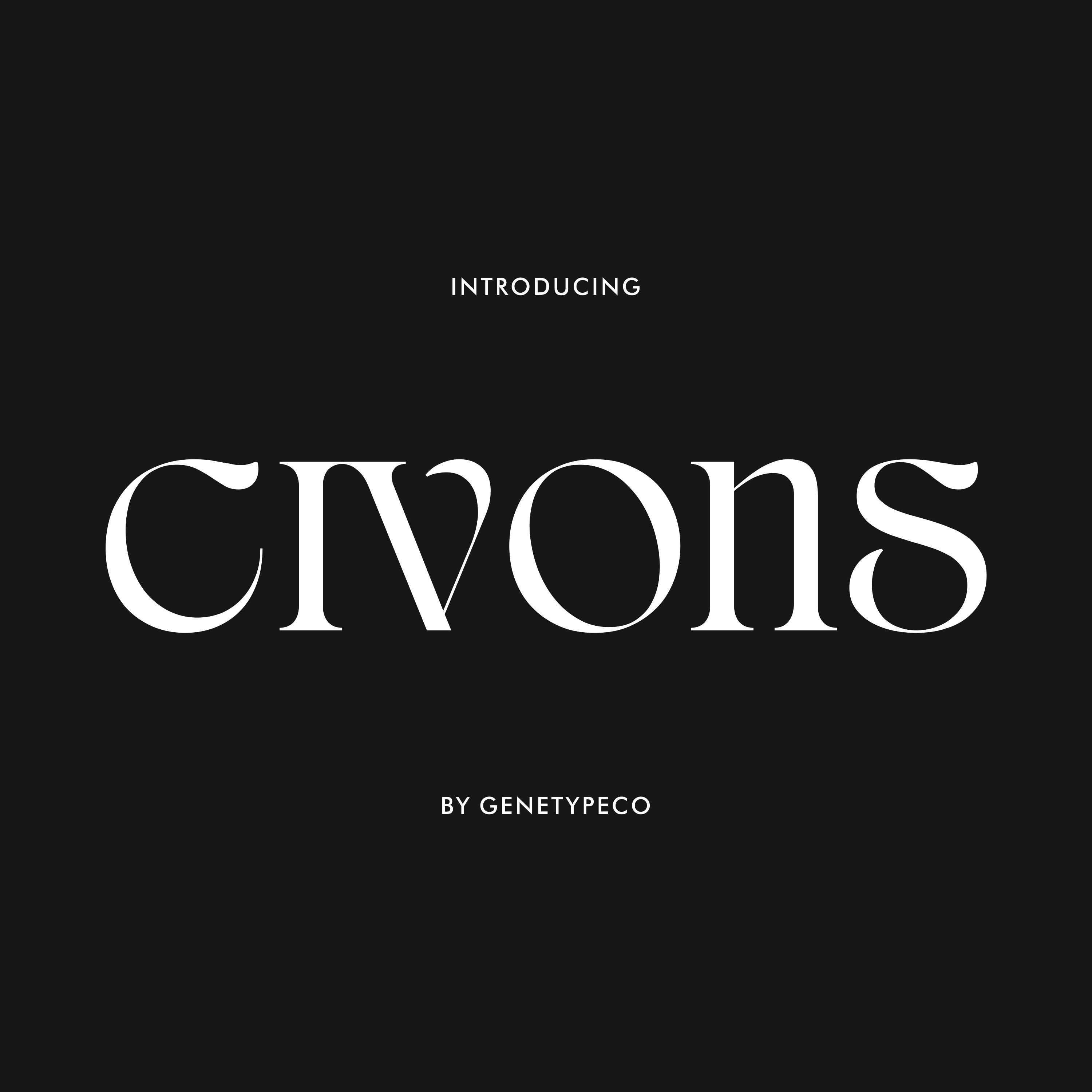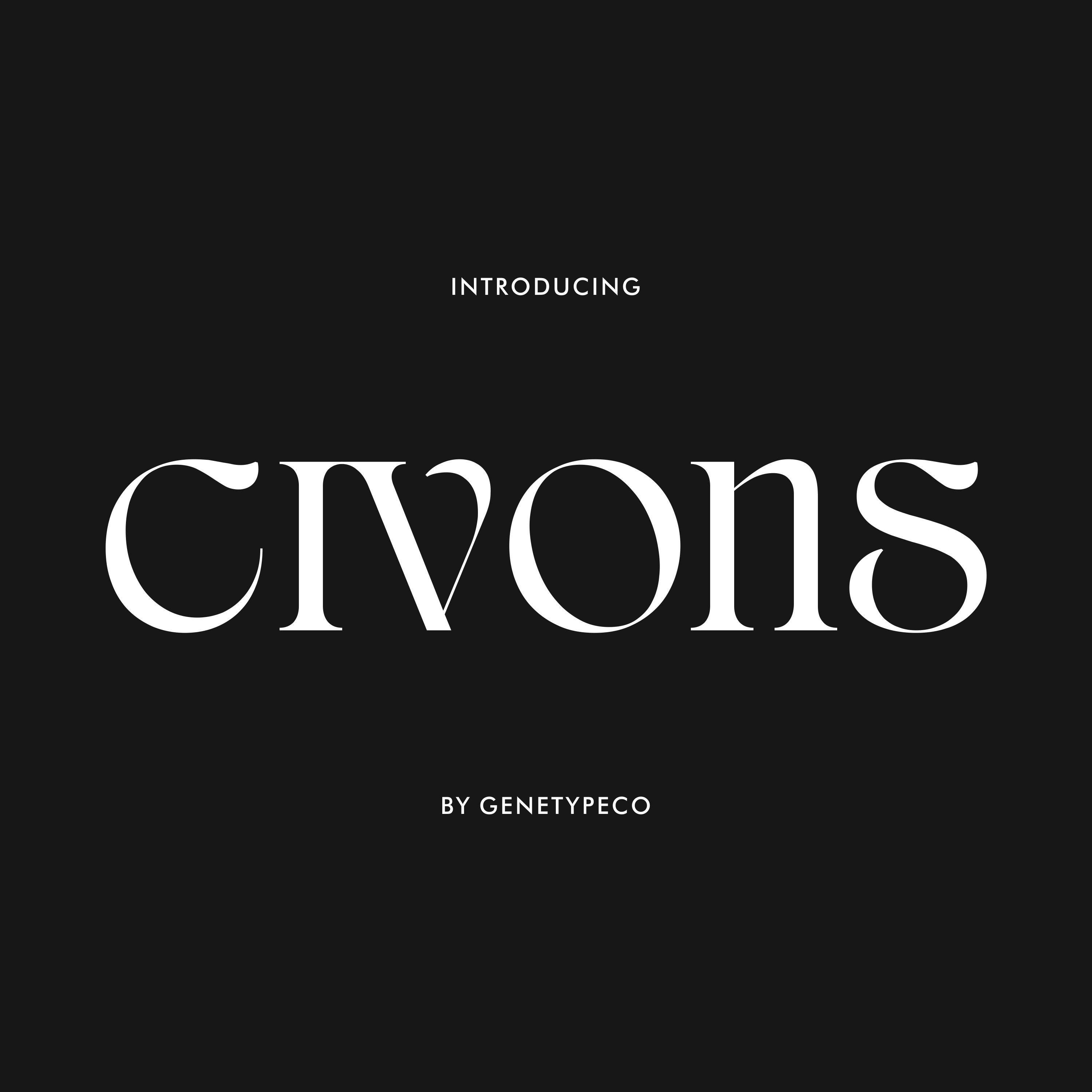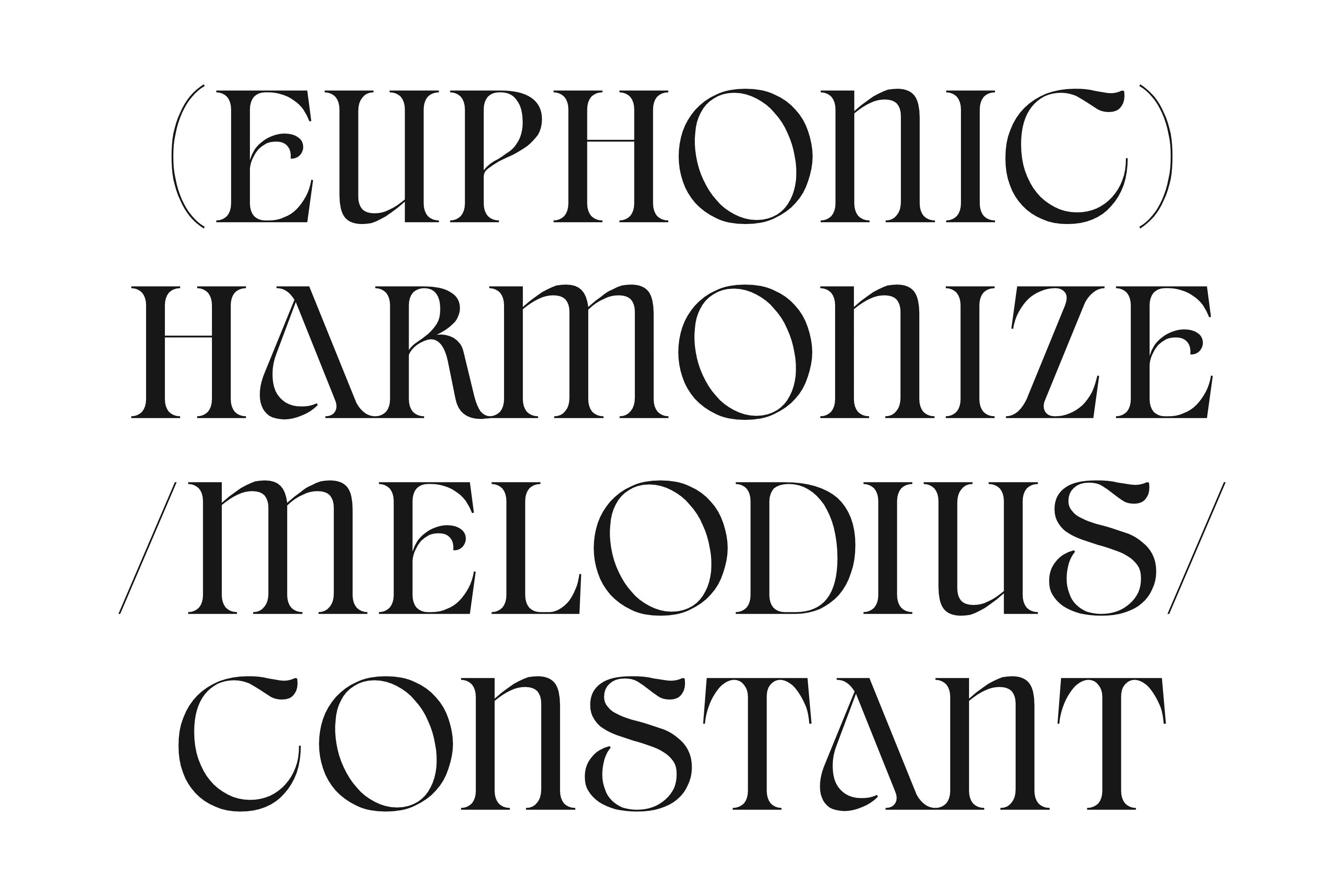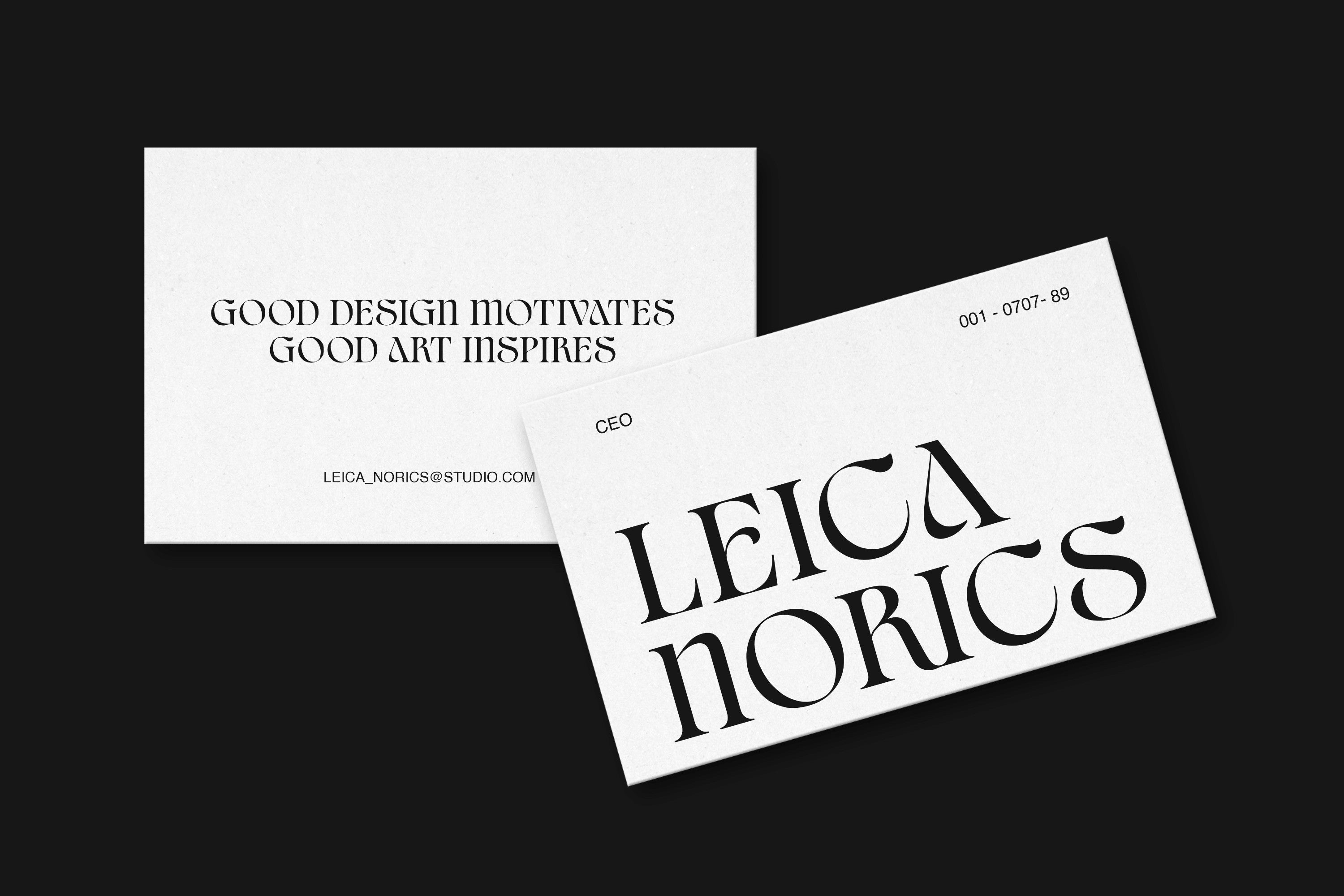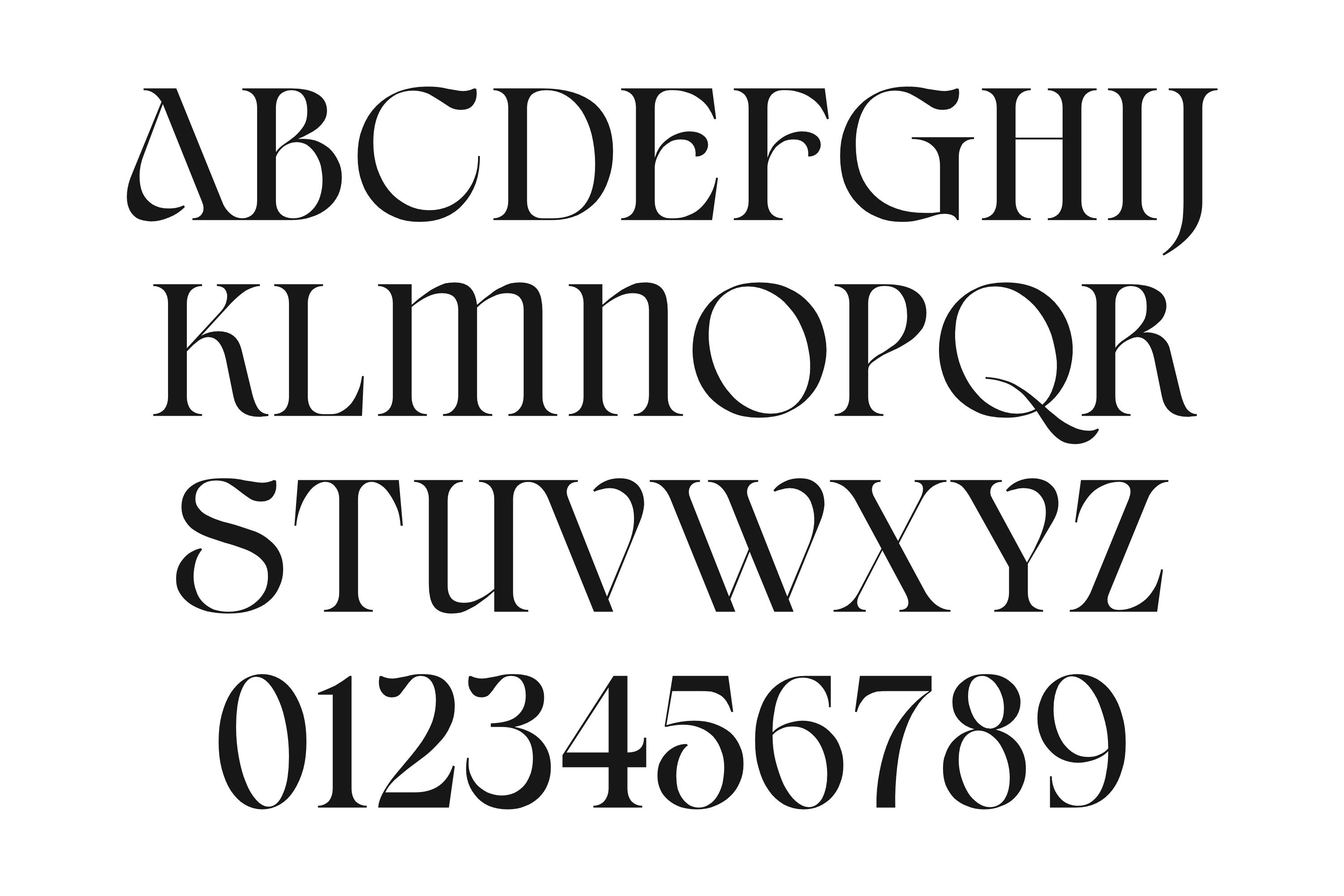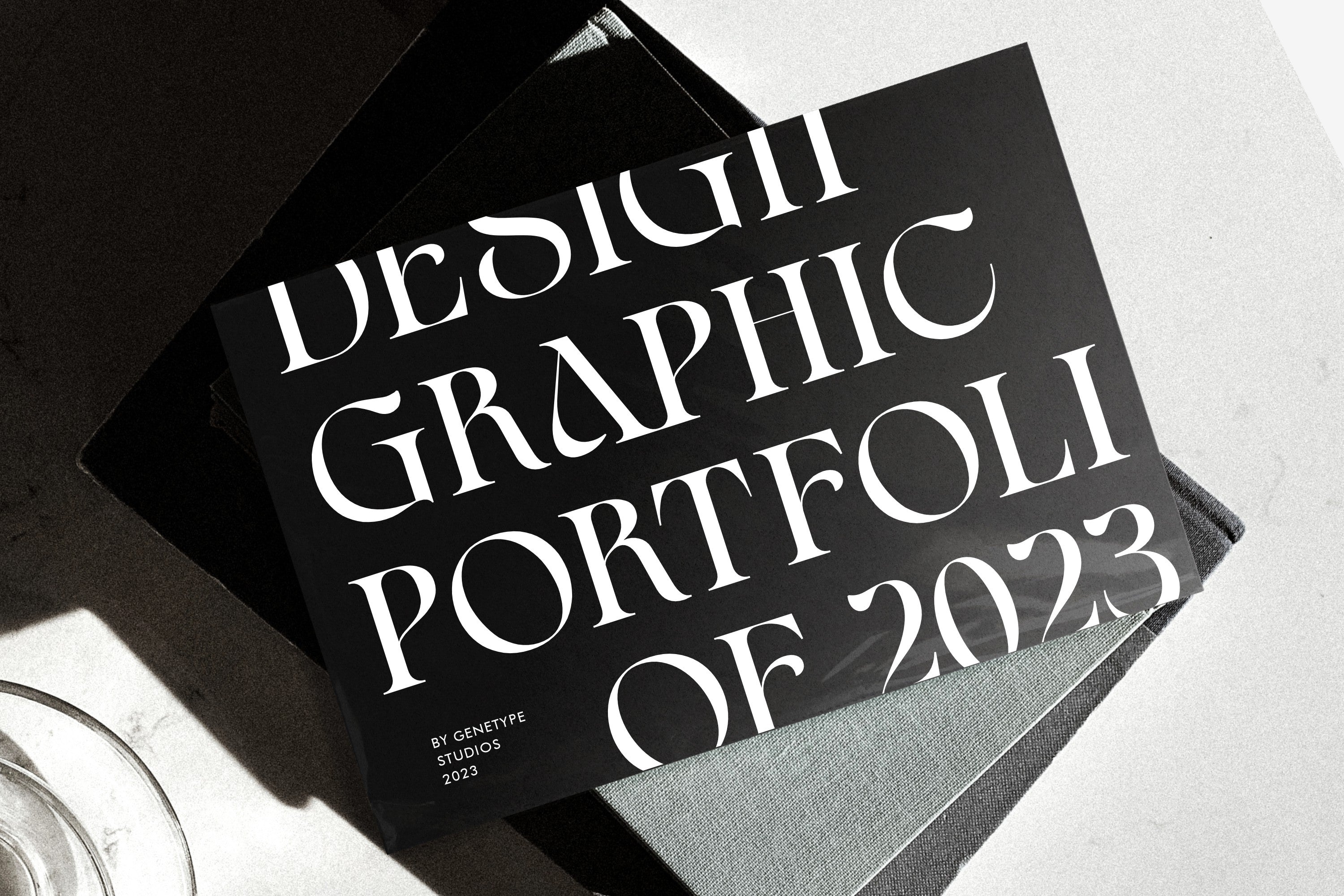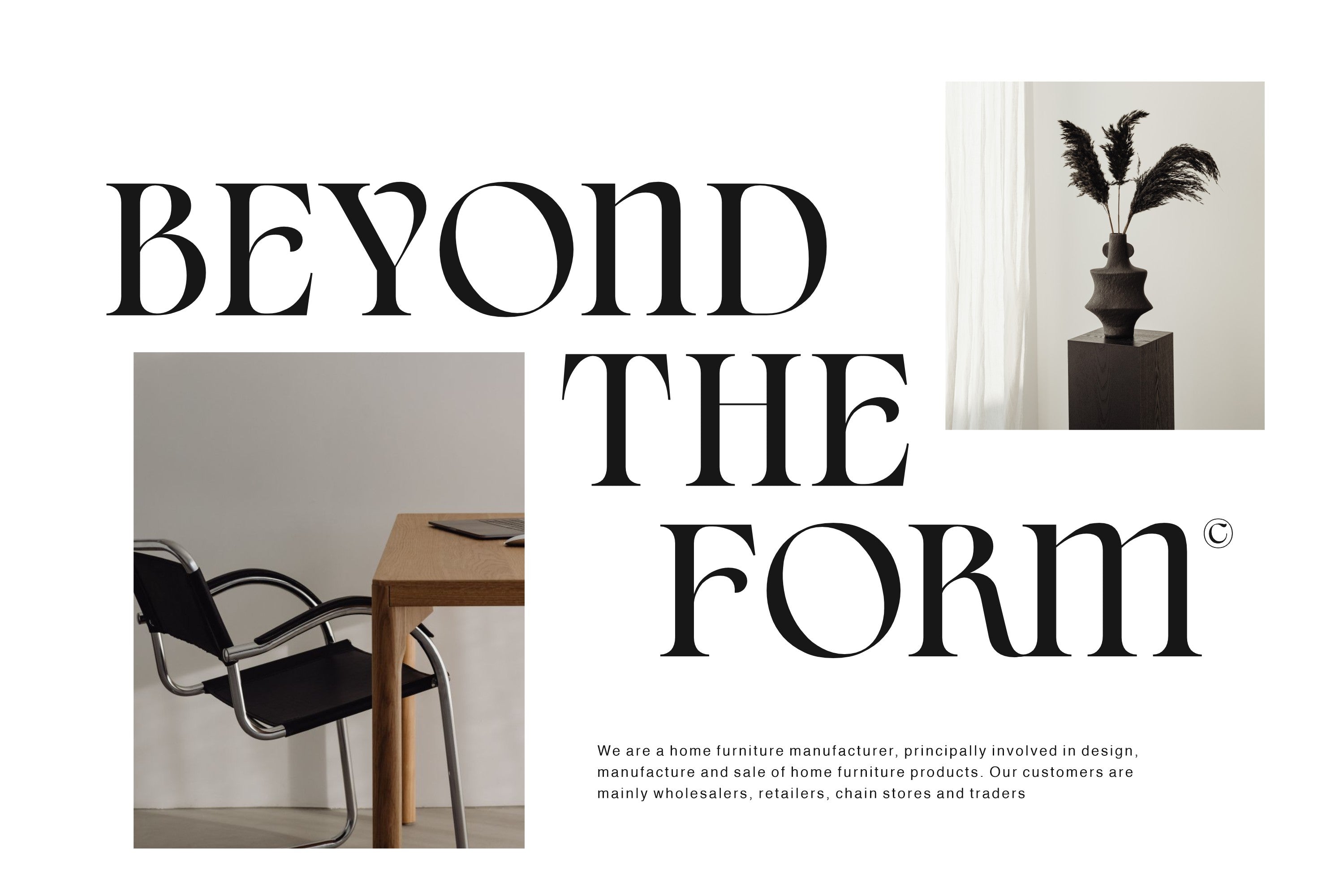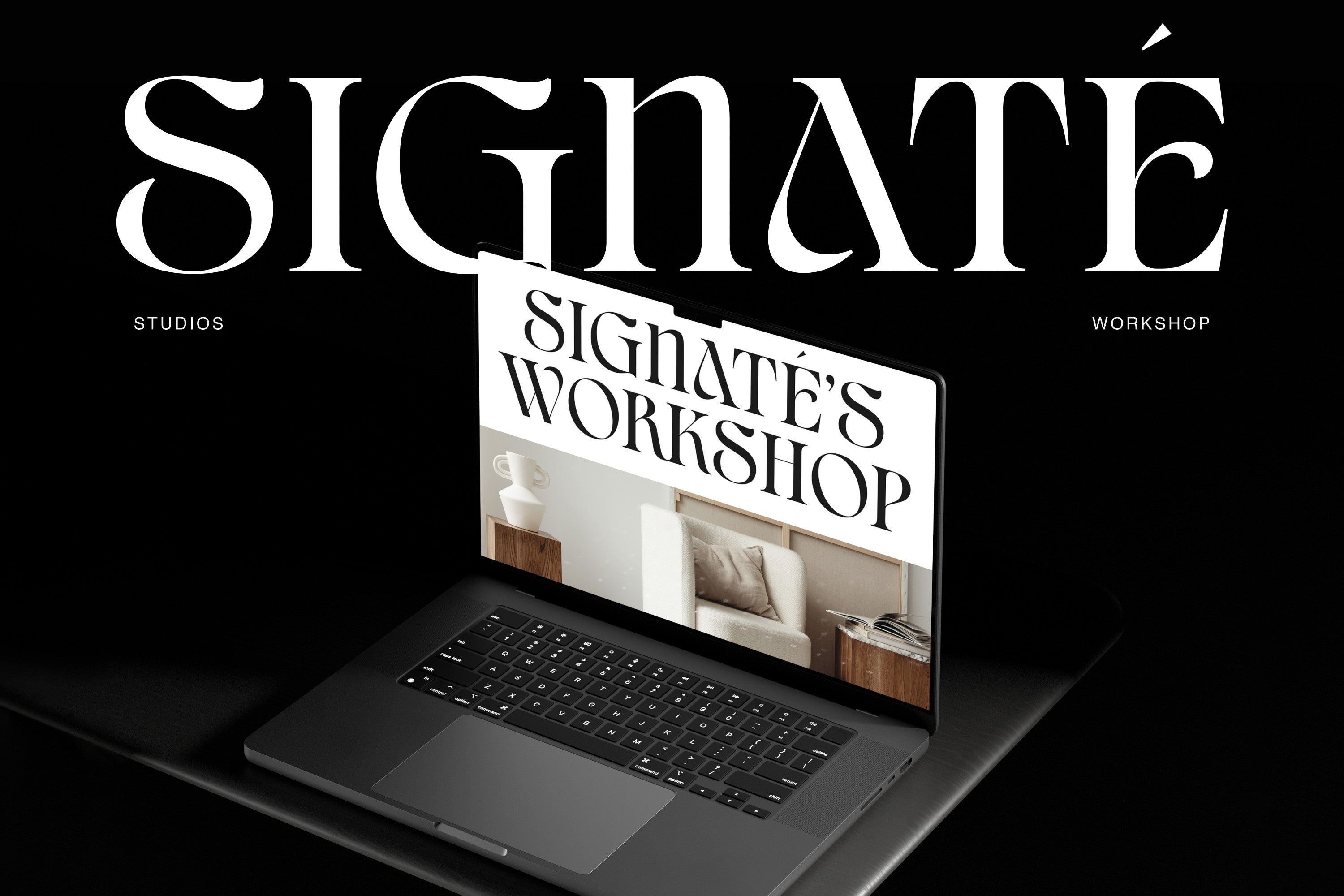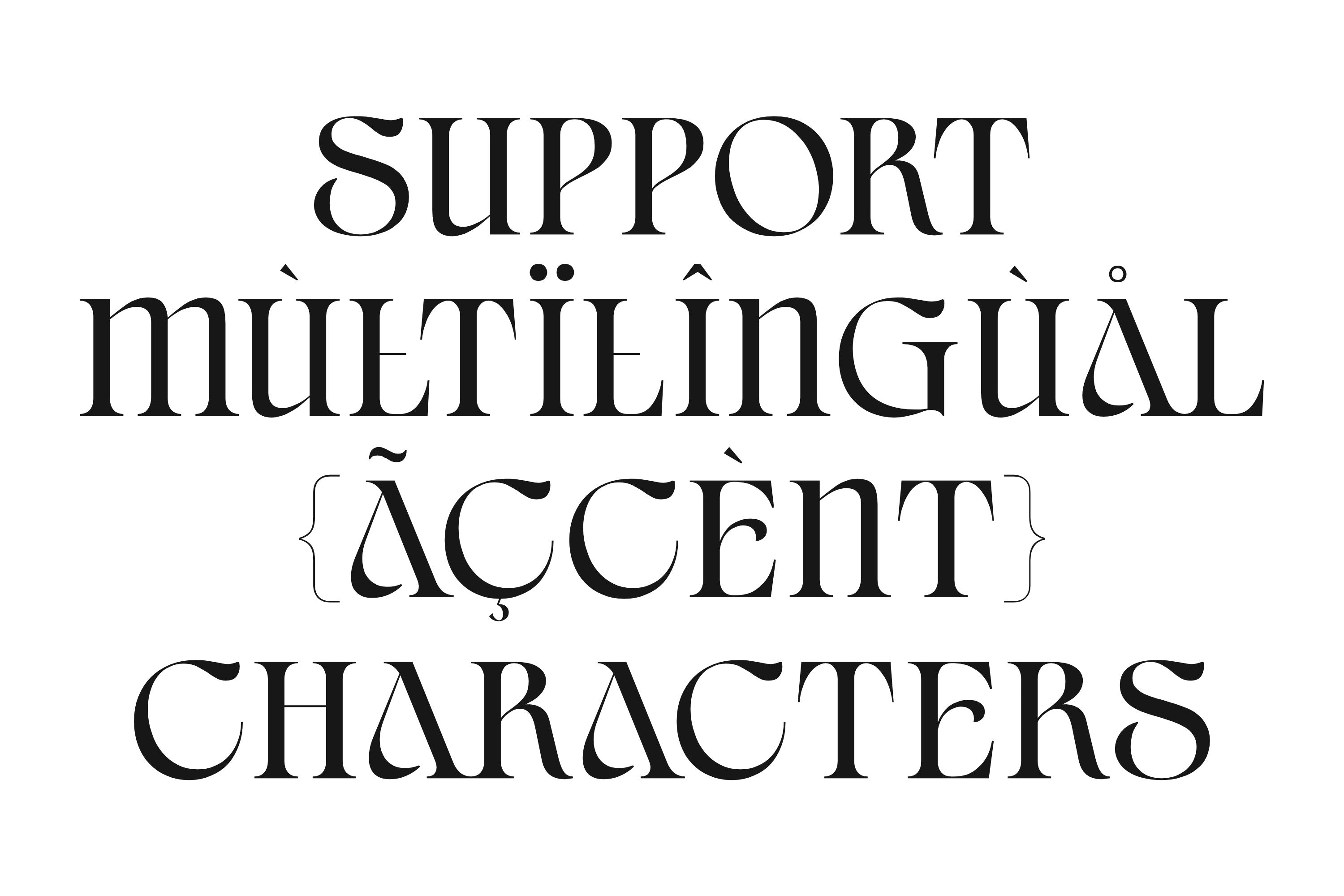
Civons Typeface
Genetypeco
Civons is an elegant modern serif typeface that blends timeless sophistication with a fresh contemporary style. Designed with high contrast and smooth curves, Civons captures the balance between classic beauty and modern minimalism — making it perfect for editorial layouts, branding identities, fashion logos, and luxury packaging. Its graceful serifs and refined proportions make every word look polished and exclusive. Ideal for magazines, wedding invitations, design portfolios, and boutique products, this font brings an elevated sense of style to any project.
Civons is an elegant modern serif typeface characterized by high contrast and smooth curves, combining classic beauty with contemporary style. Its refined proportions and graceful serifs make it suitable for a variety of design applications, including branding and editorial layouts.